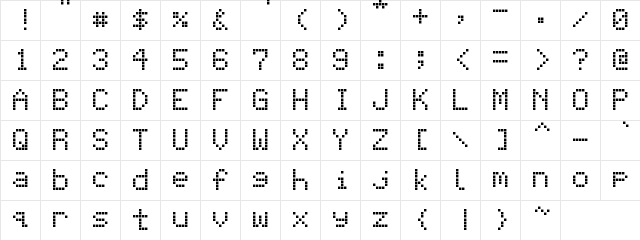
Erbos Draco 1st Open NBP Regular
| Designer | Nate Halley |
Design Context for Erbos Draco 1st Open NBP Typeface
Erbos Draco 1st Open NBP is a composed and adaptable typeface that performs quietly and consistently across a wide range of design contexts.